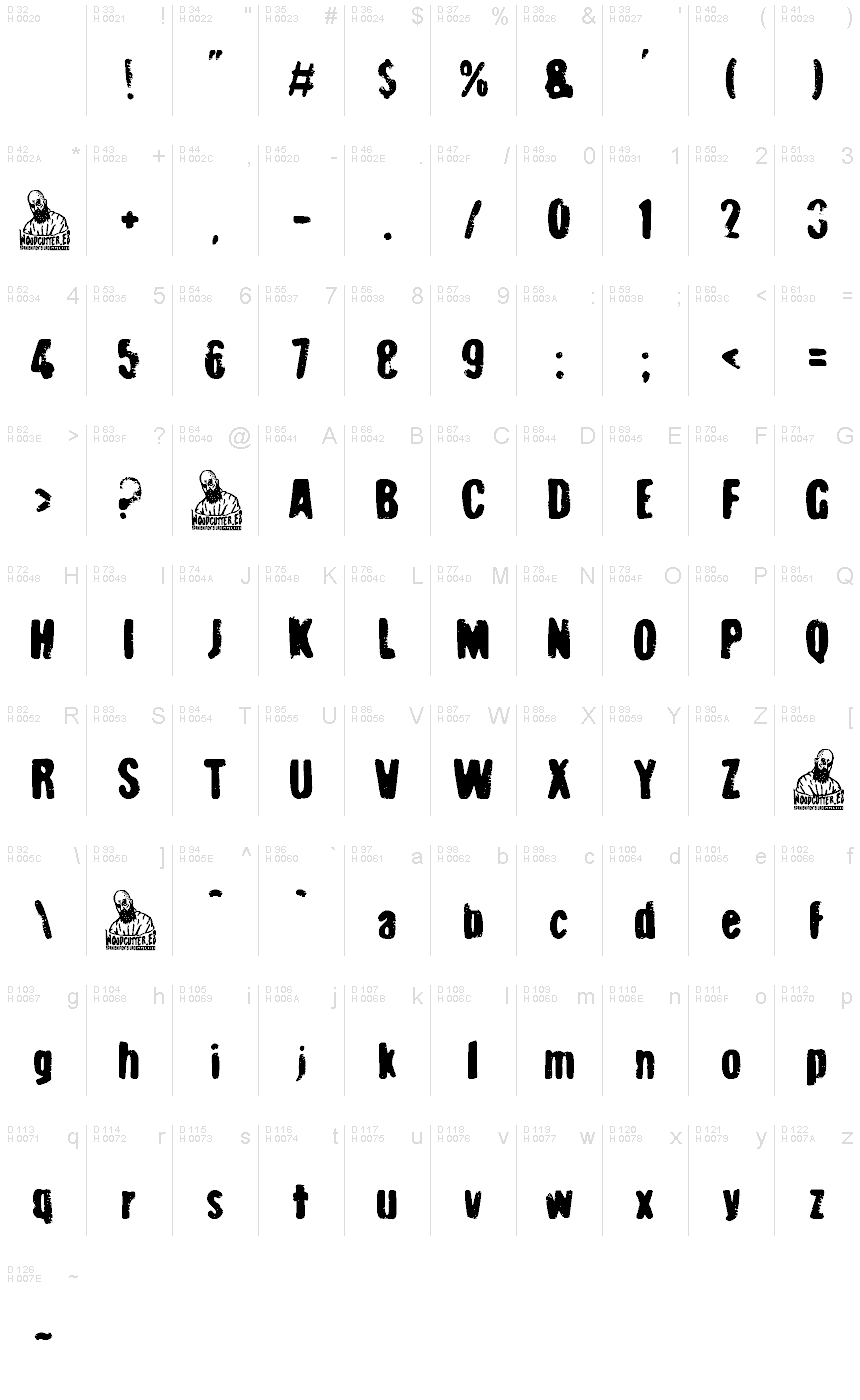
Poker Nightmare
Poker Nightmare font is a bold, eroded display typeface by Woodcutter that captures a raw grunge aesthetic. With condensed and edgy appearance against rough textures, its experimental look feels inspired by the 1990s alternative scene. Dark, informal tone is infused into every character of this free font.
Create alternative music album covers, posters for art projects or events targeting youthful audiences with Poker Nightmare. It can also be used for flyers, book titles and packaging designs in areas where expressive rawness plays a significant role.